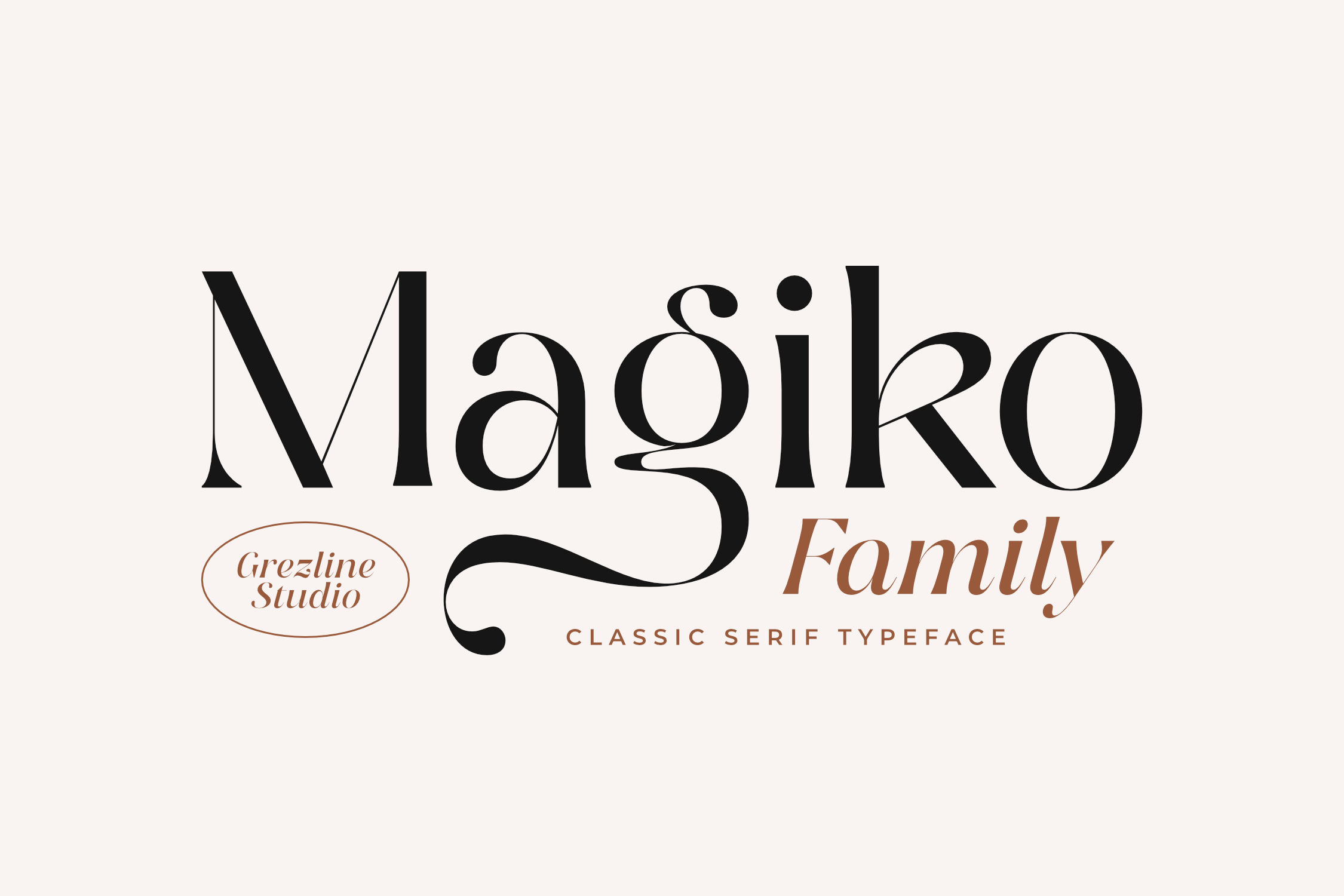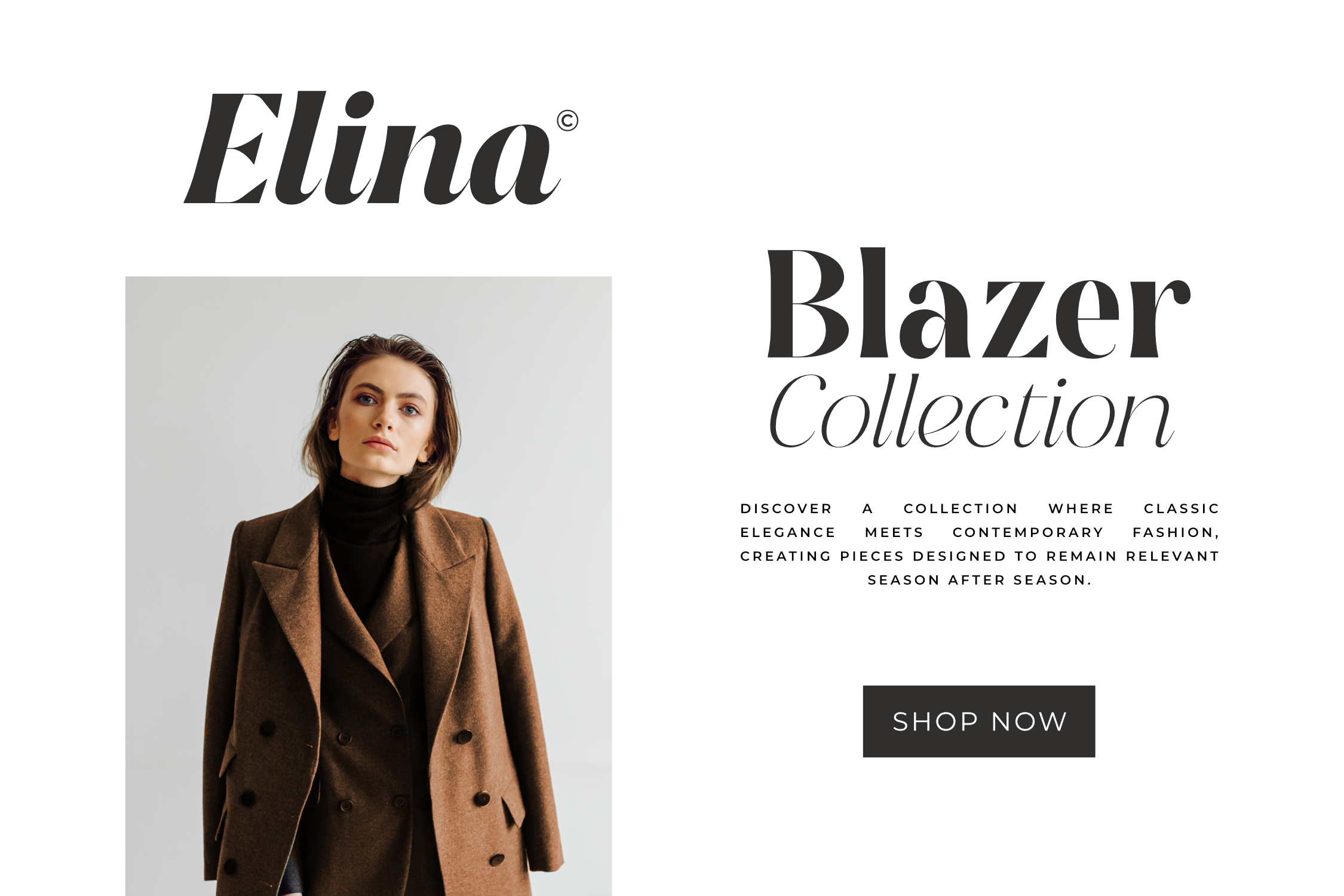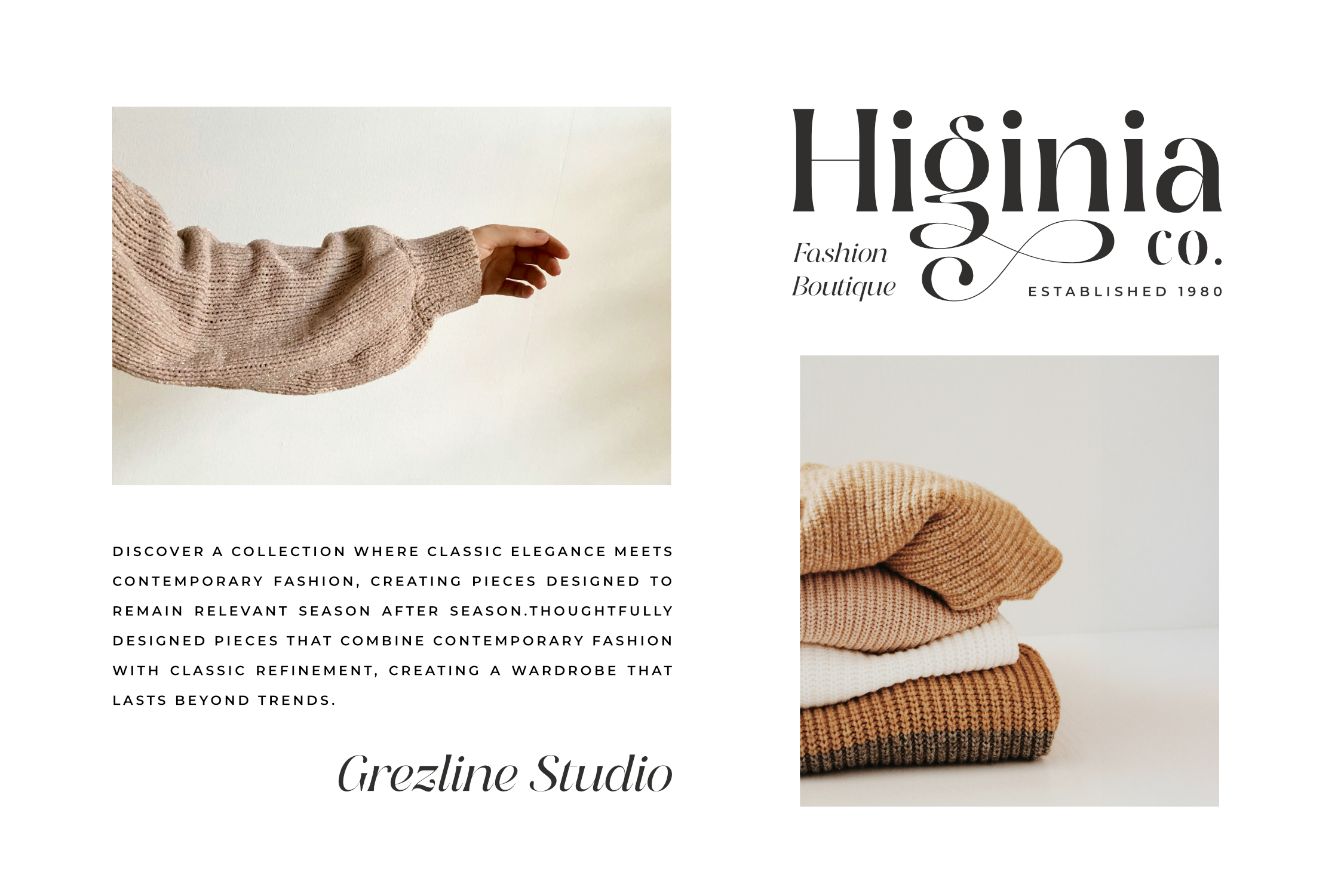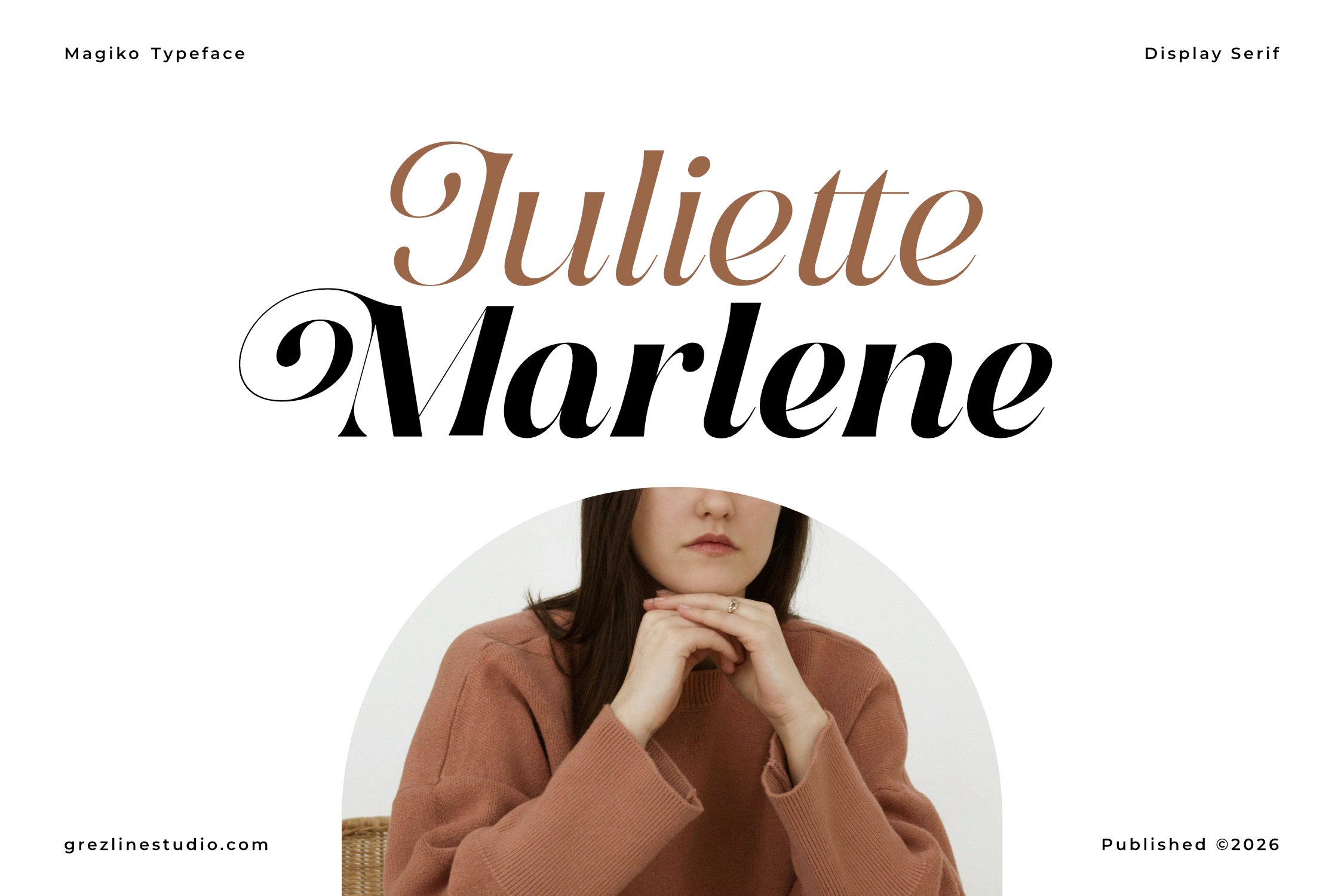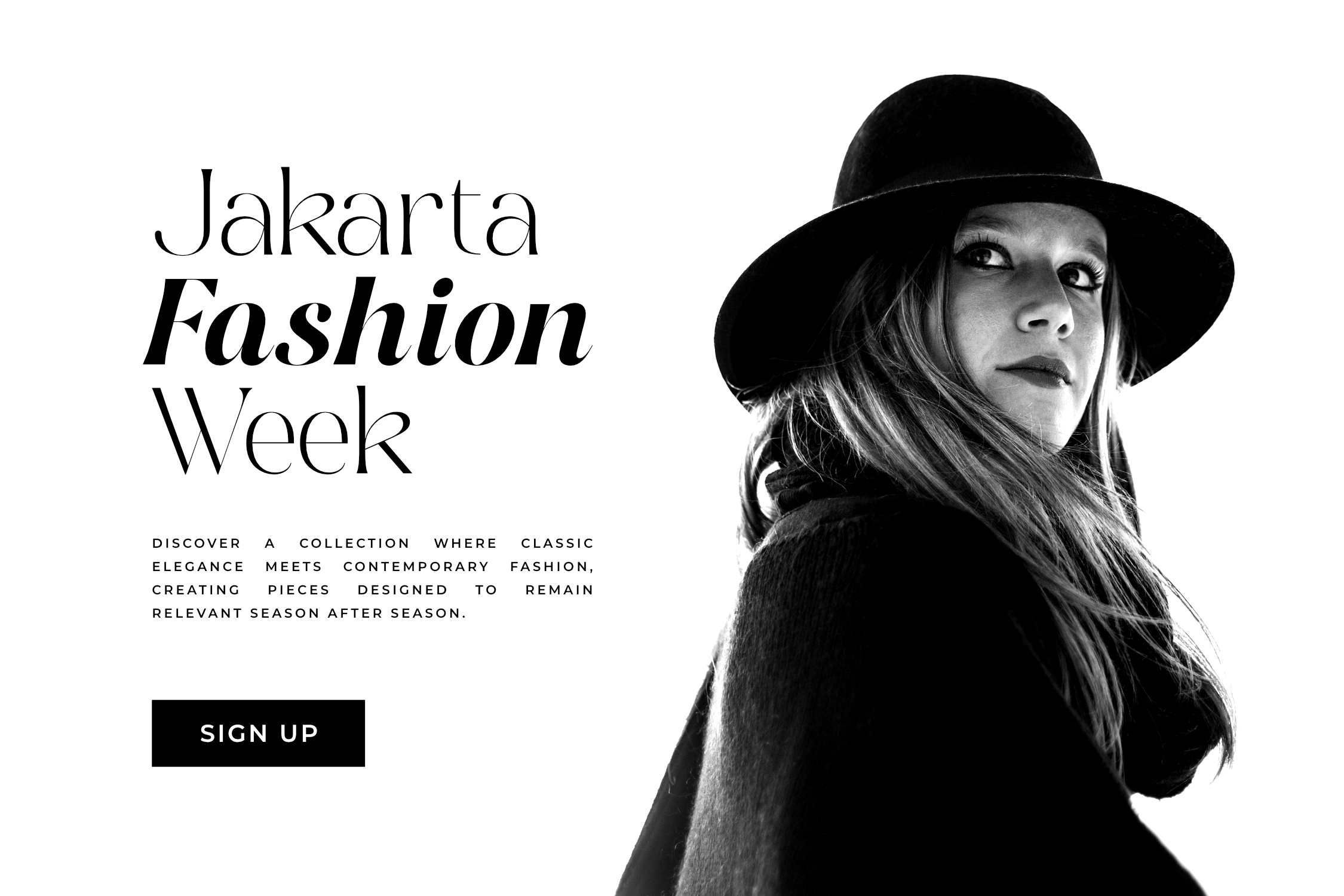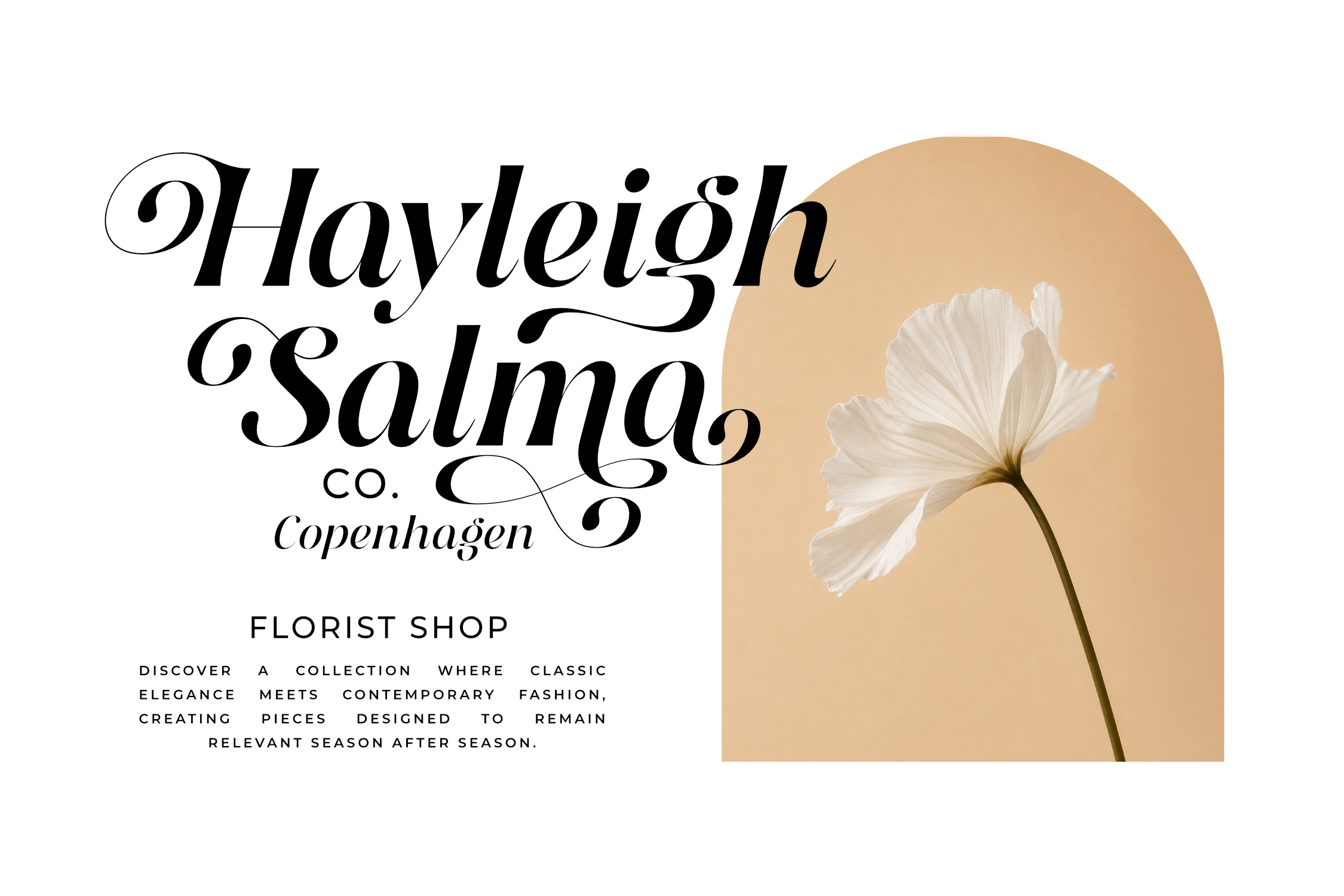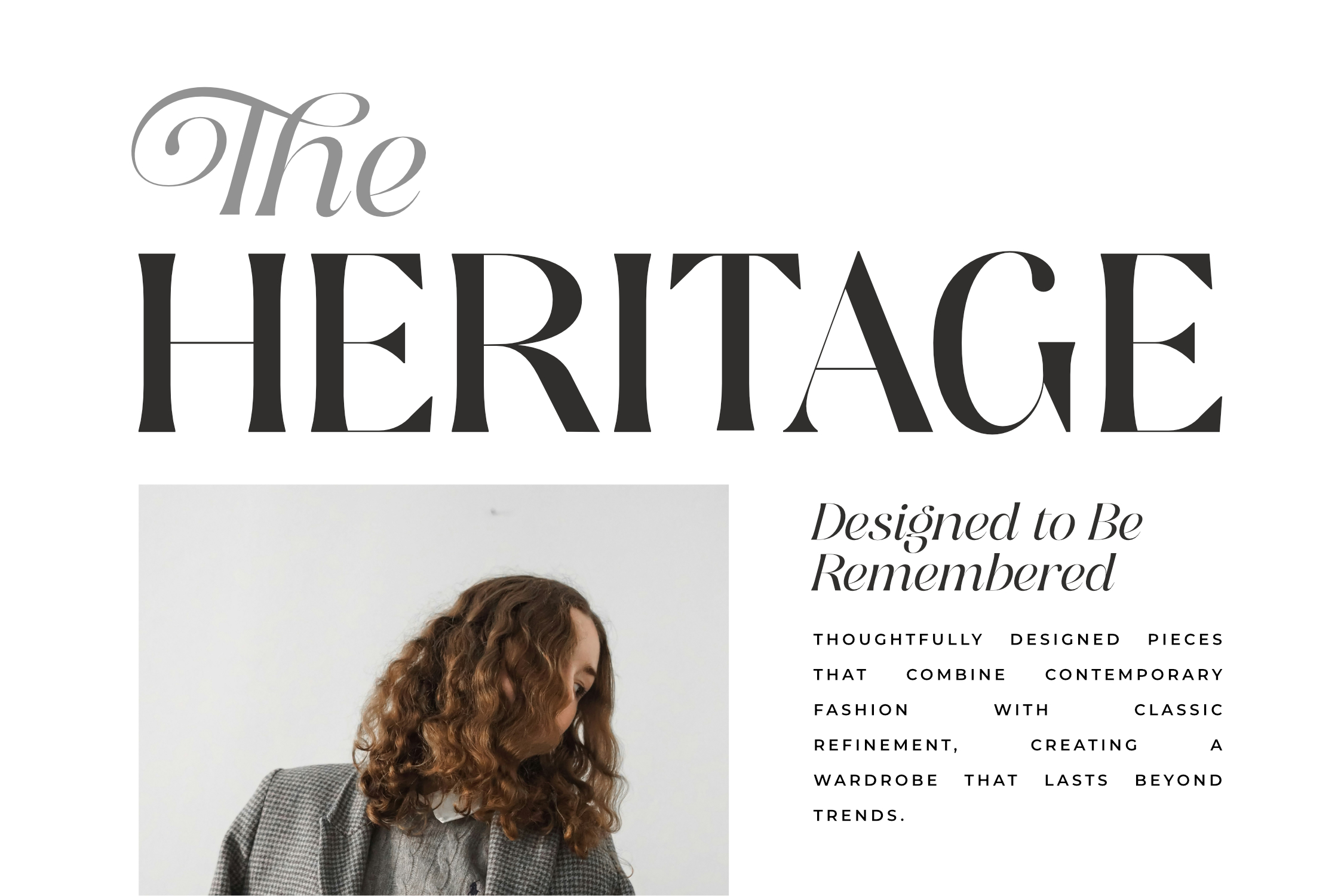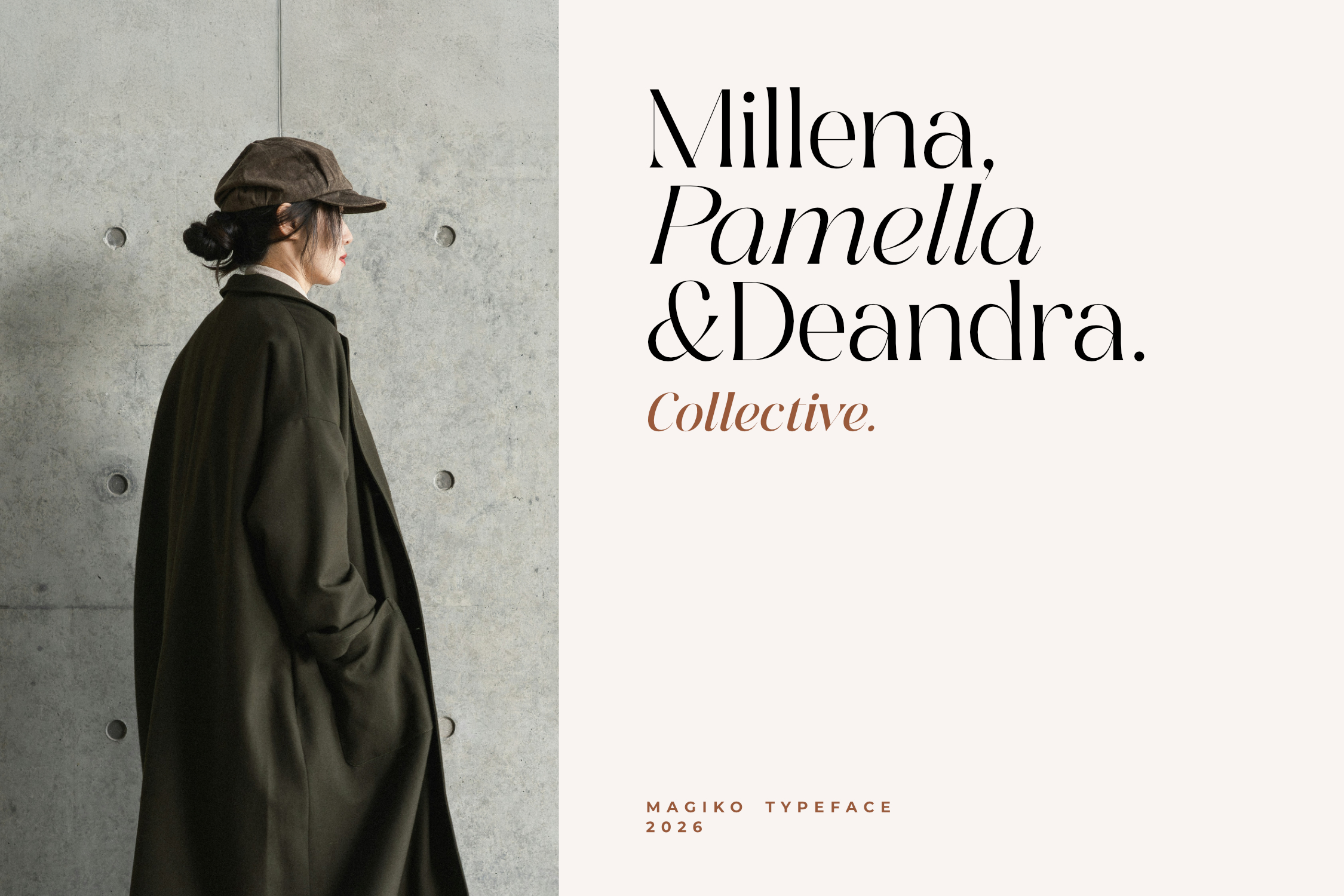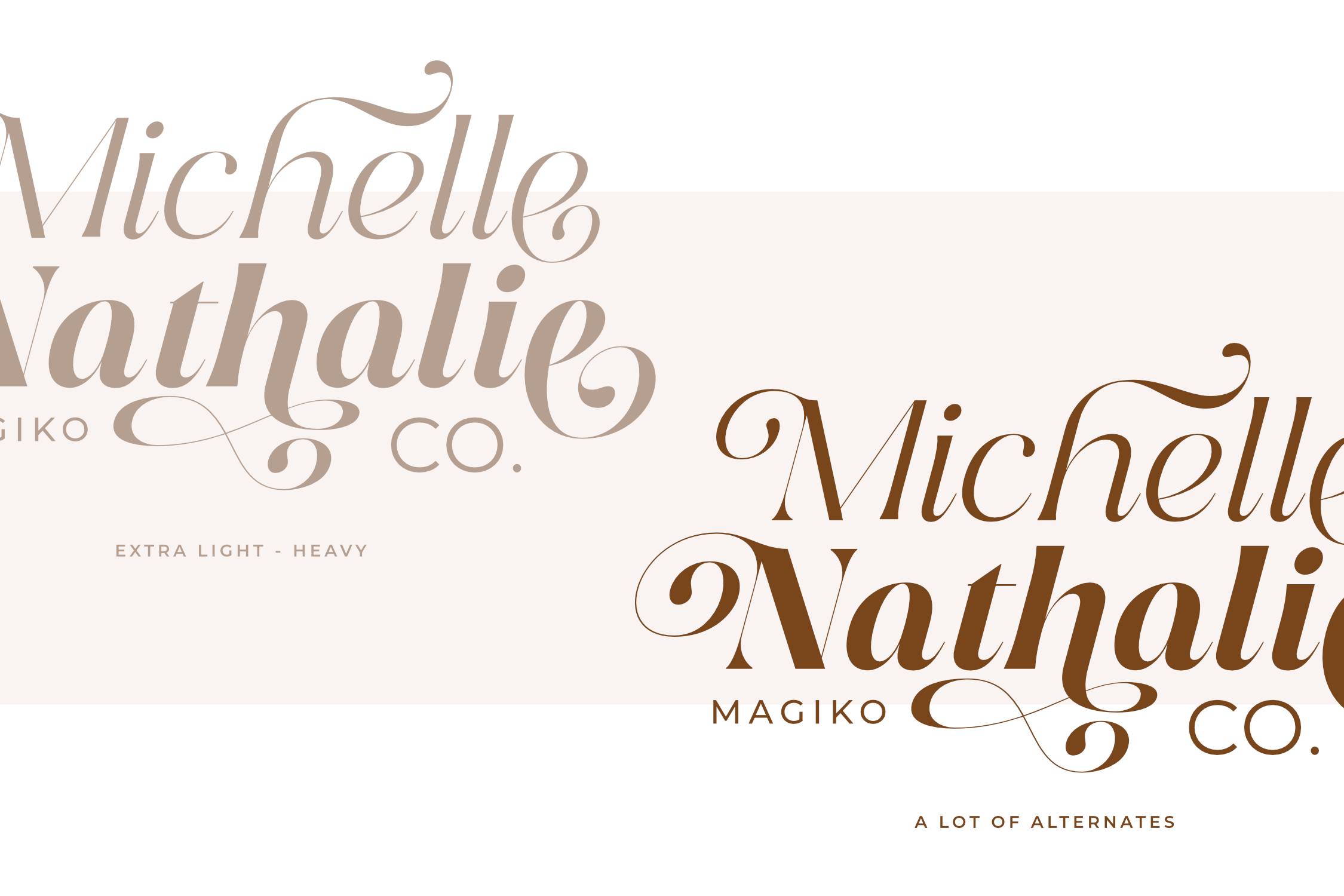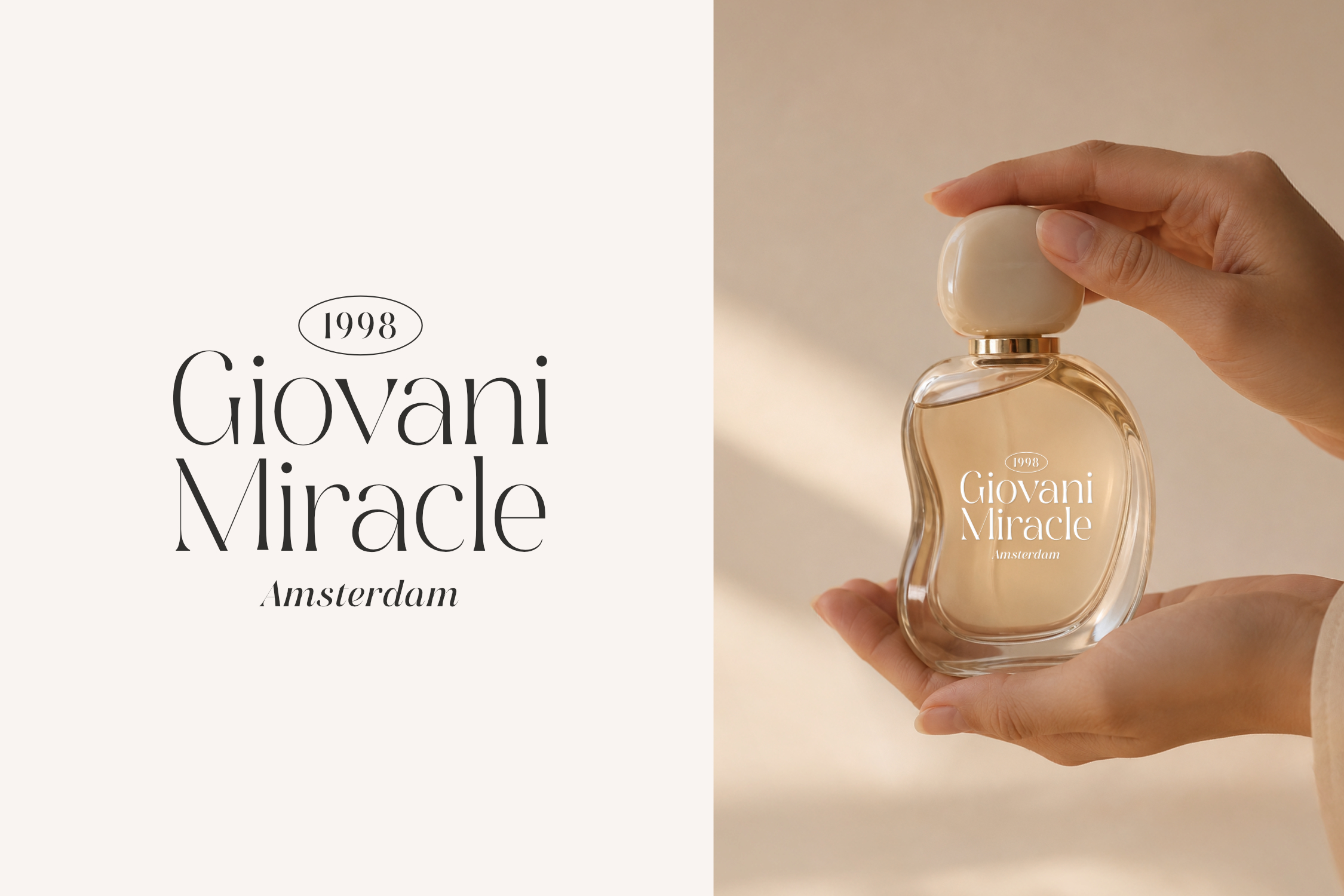
Magiko is a classic serif typeface that blends timeless elegance with a distinctive modern character. Featuring alternate characters and high-contrast details, it adds a sophisticated touch while maintaining a strong visual presence. Perfect for fashion, branding, editorial, packaging and other creative projects that call for an elegant aesthetic.
Feature:
– Alternate and Ligature
– Multilingual Language
Magiko – Fashion Typeface